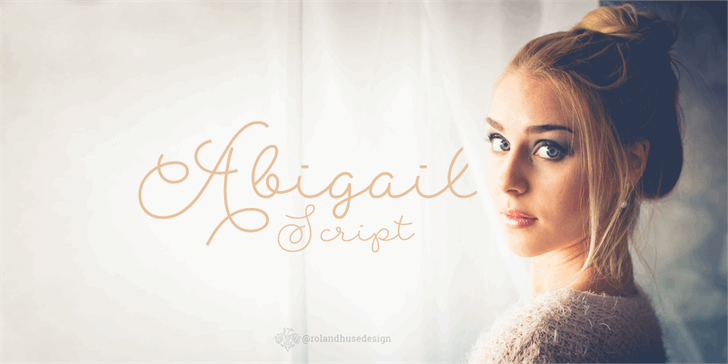
Free Abigail Script Font
Download and enjoy this free abigail script font. Cool typeface to showcase your designs in a modern way. This is a downloadable font file brought to you by Font Space. This is absolutely cool font so you can easily make world-class designs.